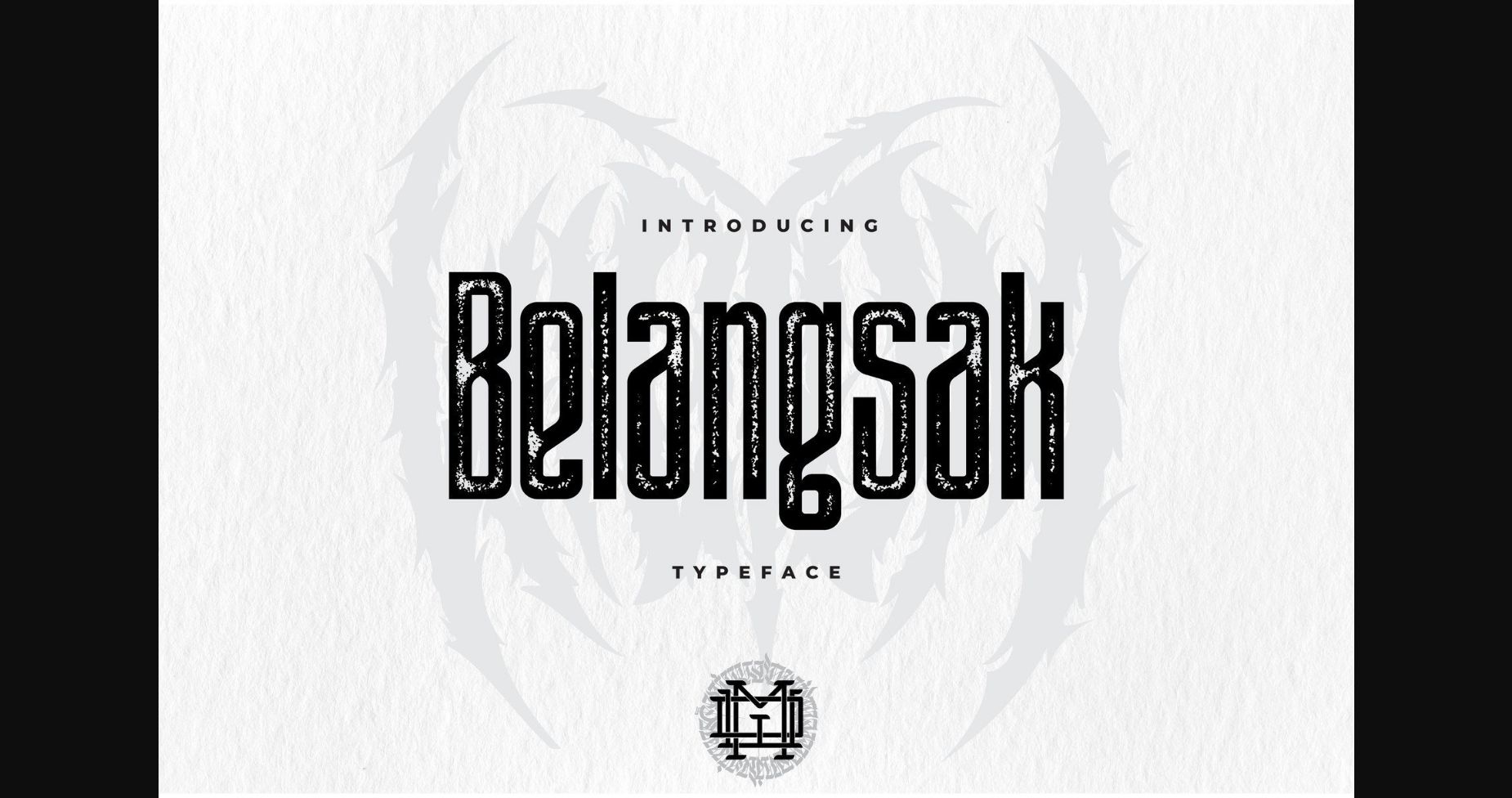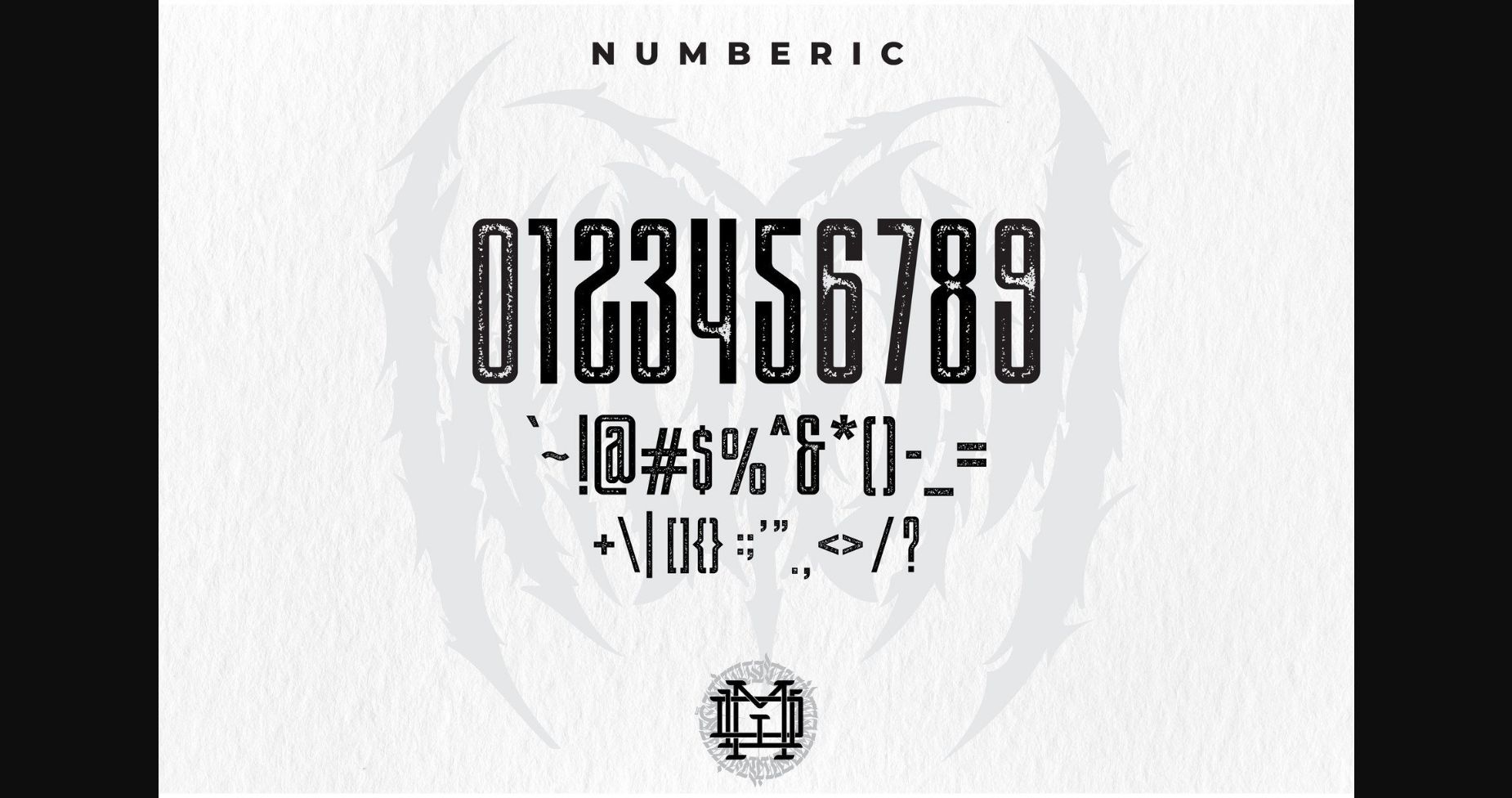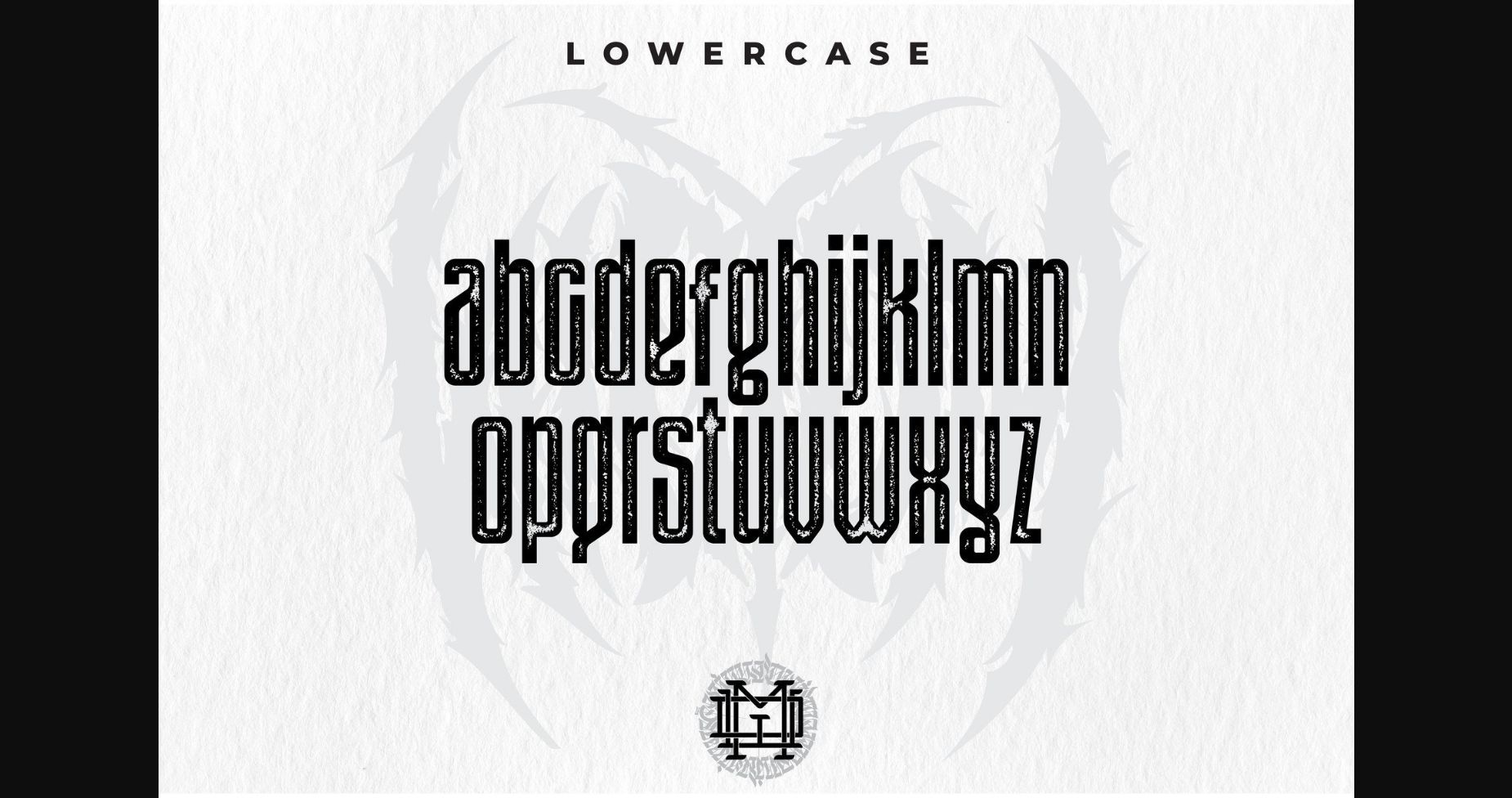
HomeSans Serif FontsBelangsak Font Sans Serif Fonts Belangsak Font FacebookXPinterestWhatsApp 1 of 6 ... Belangsak Font Poster 2... Belangsak Font Poster 3... Belangsak Font Poster 4... Belangsak Font Poster 5... Belangsak Font Poster 6... About Belangsak Font Belangsak is a rough sans serif typeface. It has a bold and fun personality. Perfect if you want to add something different to your work(s). DOWNLOAD NOW People also explored Mushmouth PB Choose Time Font Simple House Font Gabriella Font Elisabeth Font Digital Disco Deluxe – Complete Family Fontix Font Rain Font Green Leaf Font 273 0 TagsBelangsak Font Previous articleCoffee House FontNext articleCabinest Font LEAVE A REPLY Cancel reply Comment: Please enter your comment! Name:* Please enter your name here Email:* You have entered an incorrect email address! Please enter your email address here Website: Save my name, email, and website in this browser for the next time I comment. Personal Use Free Pasile Personal Use Free Read more about this font Makcex Personal Use Free Read more about this font Jellia Personal Use Free Read more about this font Limejuice Personal Use Free Read more about this font BLOG Modern Sans-Serif Fonts That Brands Love in 2025 In 2025, modern sans-serif fonts remain a top choice for brands looking to project clarity, professionalism, and... Top 10 Handwritten Fonts That Elevate Your Designs How to Install and Use Fonts on Windows, macOS, and Web Projects Transform Your Website: Elevate Your Typography with 7 Best Web Font Generators